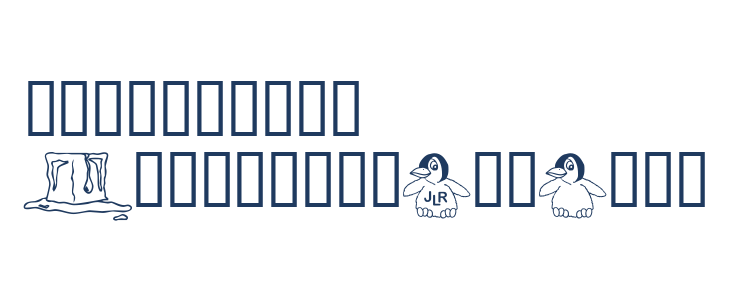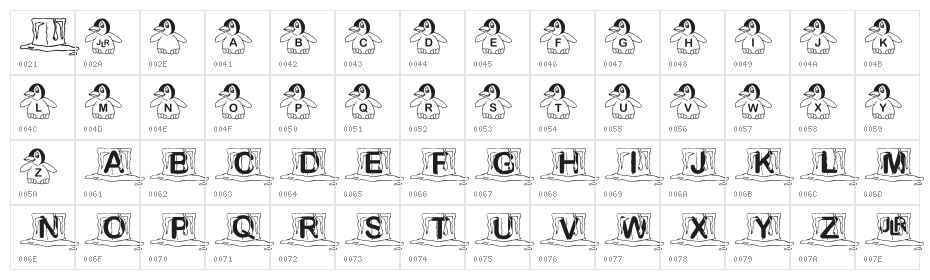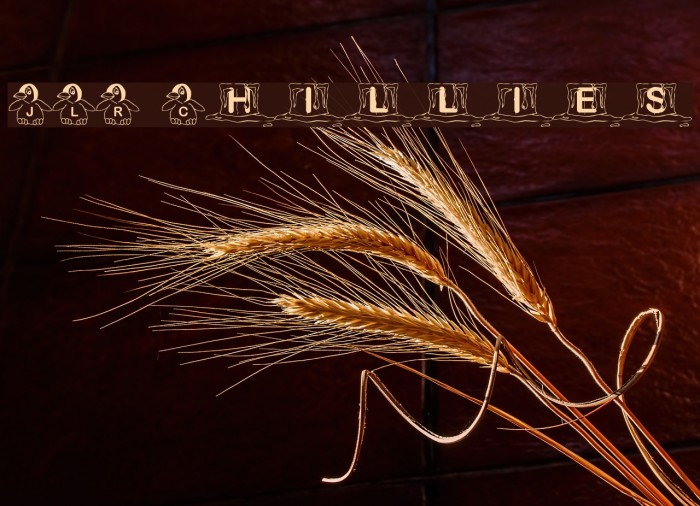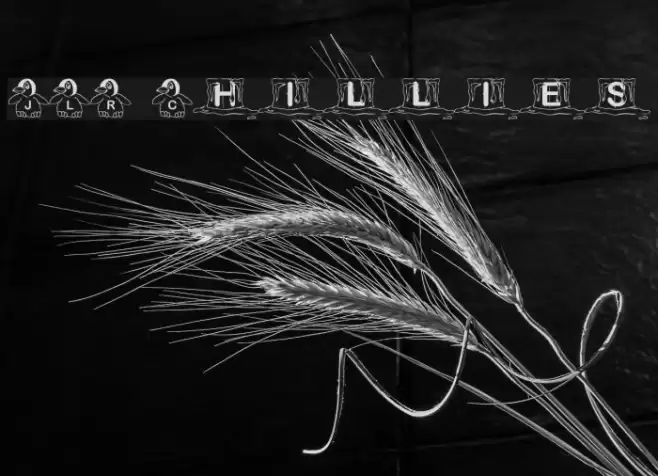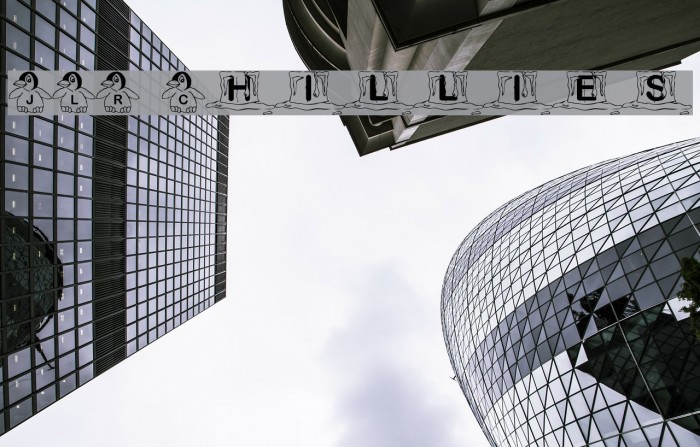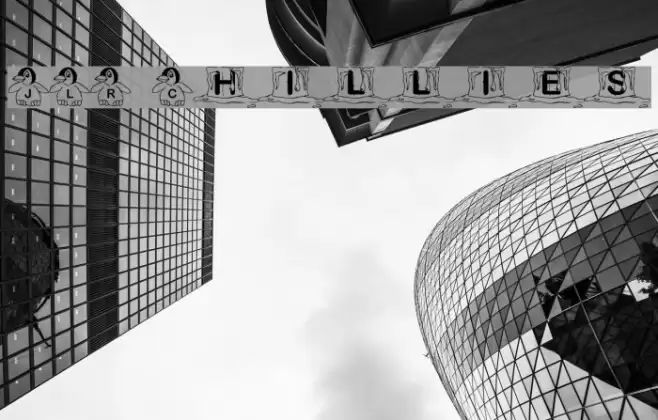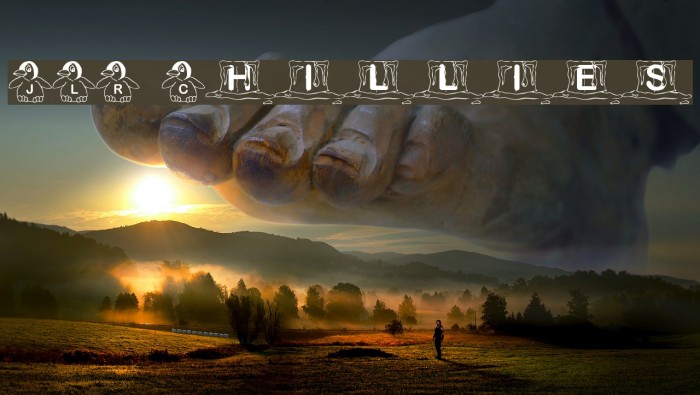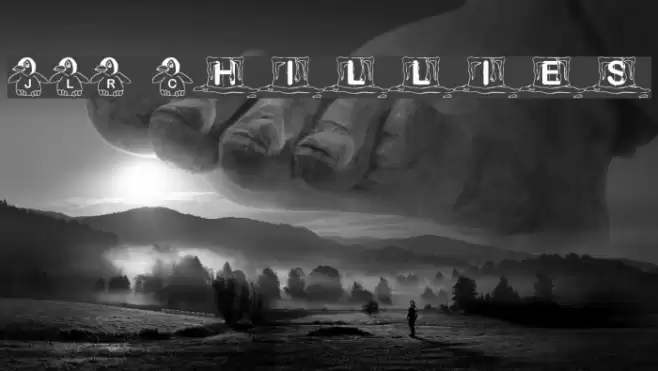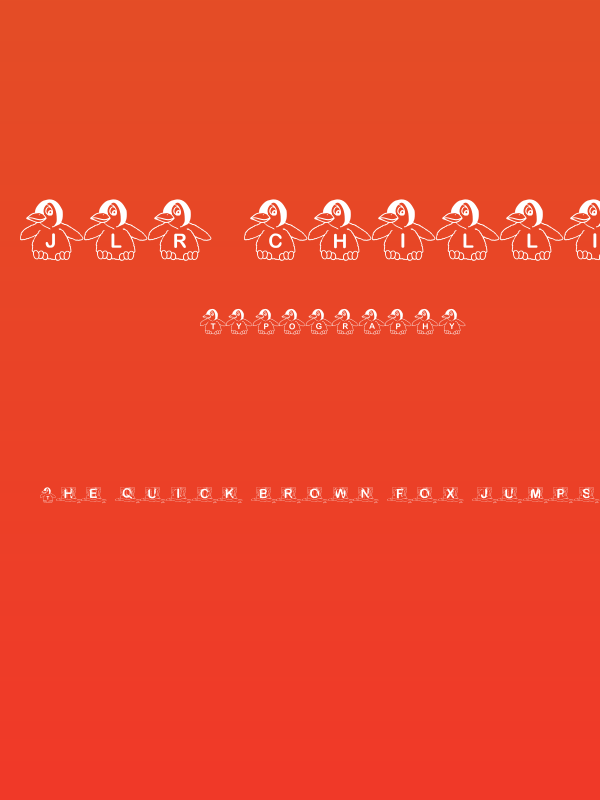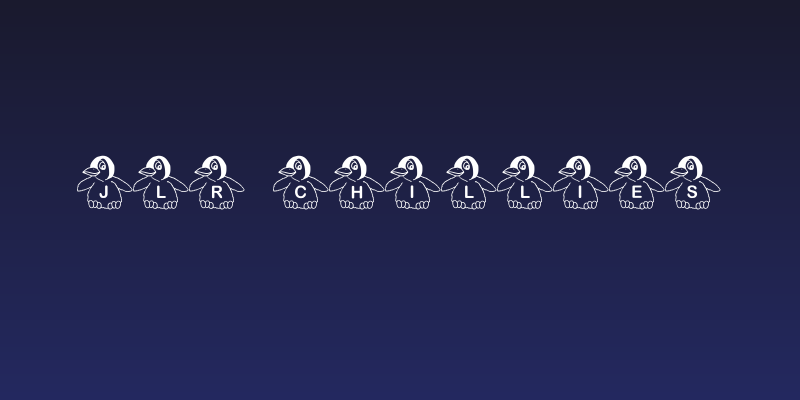
JLR Chillies Font
JLR Chillies Description
This playful and whimsical font features characters that are creatively integrated with penguin illustrations. Each letter is uniquely designed to appear as if it is part of a penguin's body, adding a fun and imaginative touch. The uppercase letters are bold and distinct, while the lowercase letters maintain the same playful theme. The font is highly decorative, making it ideal for projects that require a lighthearted and entertaining style. The characters are evenly spaced, ensuring readability despite the intricate design. This font is perfect for children's books, playful branding, or any project that seeks to evoke a sense of fun and creativity.
| Overall Style | Playful, Whimsical, Decorative |
| Proposed Projects | Children's books, playful branding, educational materials, greeting cards, and creative posters. |